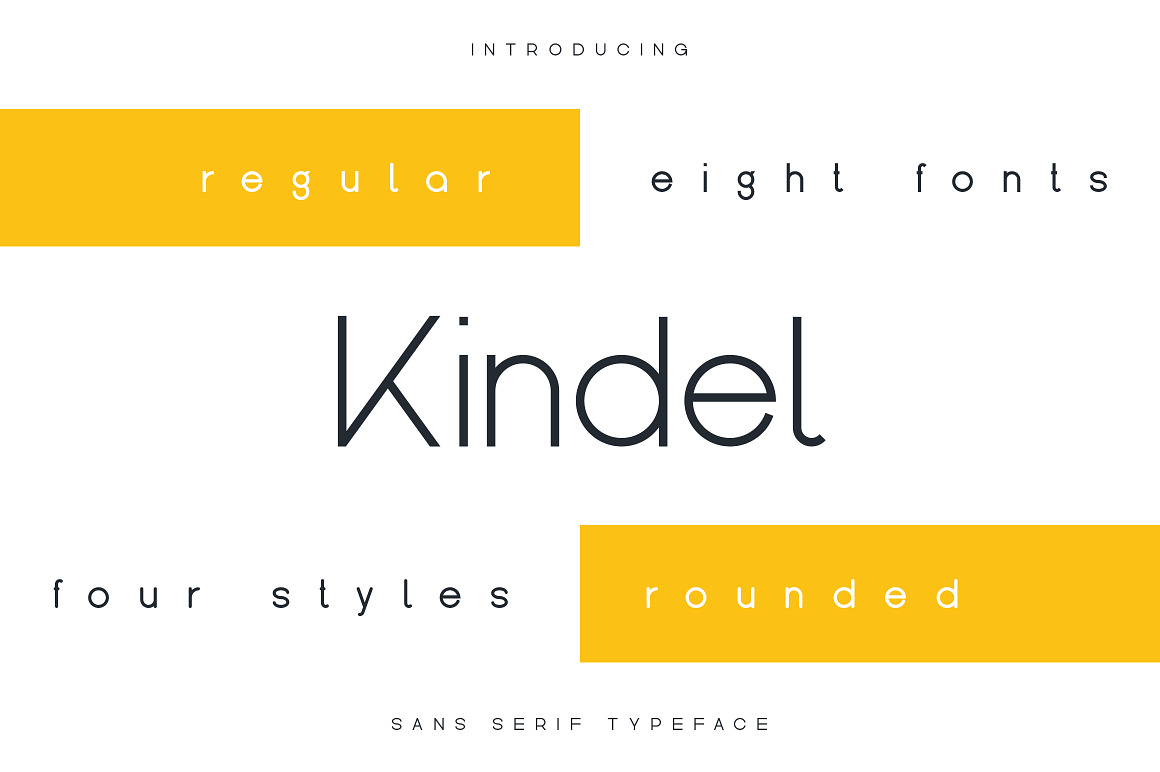
Kindel - Sans Serif Typeface
Kindel Sans Serif Typeface is perfect for friendly branding, approachable logos, healthcare communications, educational materials, community organizations, user interfaces, service-oriented designs, welcoming signage, family businesses, and warm visual communications. This inviting typeface excels in both digital and print applications requiring human connection.
Kindel Sans Serif Typeface is exciting because it delivers genuine warmth with approachable letterforms that create trustworthy visual appeal while maintaining excellent readability. Its kind character generates memorable brand experiences that resonate with audiences seeking authenticity, care, and human-centered communication.
The Kindel Sans Serif Typeface family includes regular, bold, light, italic, condensed, extended, and friendly variants, providing designers with comprehensive typographic options for various design scenarios and caring communication requirements.
Kindel Sans Serif Typeface embodies the essence of human-centered design, delivering exceptional typography that reflects the compassion and accessibility essential for organizations focused on serving people and building genuine community connections. This thoughtful typeface combines the reliability of sans serif structure with subtle warmth that communicates care and understanding. The font's caring character makes it particularly valuable for healthcare organizations, educational institutions, nonprofit organizations, and service-oriented businesses that require typography capable of conveying trustworthiness while maintaining approachability and human connection.
The compassionate construction of Kindel Sans Serif Typeface demonstrates careful attention to accessible design principles, with balanced proportions and gentle details that create harmonious visual compositions perfect for community-focused and service-oriented applications. This caring approach ensures excellent performance across diverse applications, from healthcare communications to educational materials where friendly appeal enhances user comfort and organizational trust. The font's welcoming qualities make it especially effective for brands in healthcare, education, social services, and community organizations that must communicate care through accessible, trustworthy visual design.
Creative professionals working with Kindel Sans Serif Typeface Free Download will appreciate the typeface's versatility across caring and contemporary design challenges. Its approachable styling bridges professional and personal aesthetics, making it suitable for established service organizations and innovative companies requiring memorable, trustworthy typography with genuine human appeal. The font's kind presence makes it particularly effective for medical practices, schools, community centers, and service businesses that must communicate reliability through warm, accessible visual design.
Whether developing service-oriented brand identities, creating caring communications, or designing community marketing materials, Kindel Sans Serif Typeface provides the human warmth needed for communications that inspire trust and convey genuine care while maintaining professional standards and achieving authentic connection with audiences who value compassion and community-centered service.